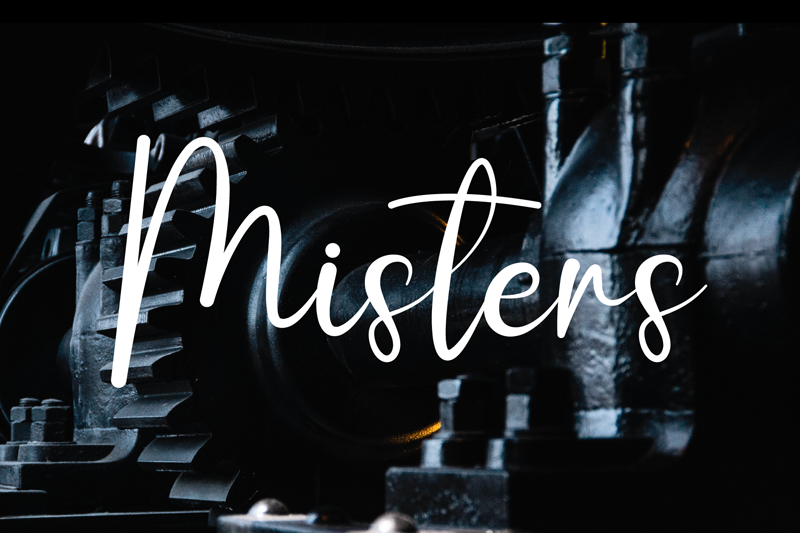
Font name: | Misters |
Author: | Design Vector10 |
Note by Design Vector10 | |
Misters is a lovely and timeless handwritten font. It is the best choice for creating eye catching logos, branding and quotes. Every letter has a unique and beautiful touch, which will make your design come alive! |